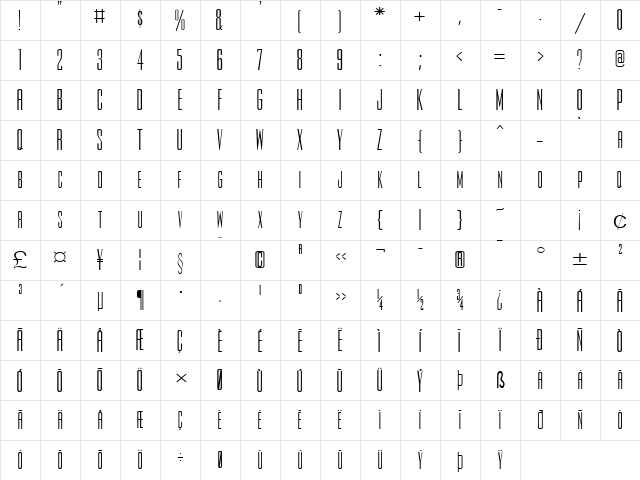
Complete Slim Jim-Extended Normal glyph index. Displaying only characters natively supported by Slim Jim-Extended Normal font.
Slim Jim-Extended is a composed and adaptable typeface that performs quietly and consistently across a wide range of design contexts.